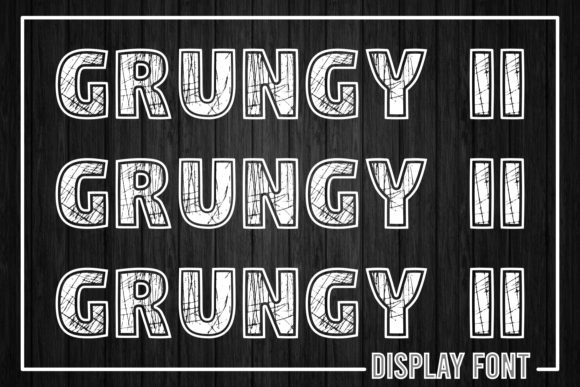
The Birth of a Masterpiece: Unleashing the Power of Grungy I I Font
Have you ever found yourself stuck in a creative rut, staring at a blank page or screen, searching for the perfect font to bring your vision to life? That’s where the magic happens – the moment when the right font clicks, and your project starts to take shape.
Enter Grungy I I Font, a bold and distressed typeface designed to add character and depth to your projects. This uniquely crafted font is perfect for designers who crave a vintage look or a contemporary edge. With its authentic distressed texture and boldness, Grungy I I Font delivers the perfect blend of strength and style, making it a valuable addition to any designer’s toolkit.
Grungy II Font Key Features
- Font Size: The font family includes multiple weights, ranging from Extra Light to Extra Bold, providing flexibility for various design applications.
- Unique Characteristics: Grungy II features a distressed, grungy aesthetic with subtle texture and wear, adding a touch of vintage charm to digital designs.
- Font Styles: Includes various font styles, such as Regular, Italic, Bold, and Bold Italic, to cater to different design needs and preferences.
- Language Support: Supports a wide range of languages, including Latin, Cyrillic, and Greek alphabets, making it suitable for multilingual designs and applications.
Designer Review: Grungy I I Font
Overall, I was intrigued by the Grungy I I font, with its unique blend of grunge and graffiti styles. ✨ The font’s distressed texture adds a layer of depth and character that can be quite eye-catching. Here are some aspects that work well:
- Unique style: Grungy I I stands out from the crowd with its one-of-a-kind aesthetic.
- Expressive feel: The font’s imperfections give it a sense of raw energy and emotion.
- Flexibility: Grungy I I can be used in a variety of contexts, from music to fashion branding.
- Limited legibility: The font’s distressed texture can make it difficult to read, especially at smaller sizes.
- Overuse: Grungy I I’s distinctive style may become tired or clichéd if overused.
Overall, I think Grungy I I is a solid addition to any designer’s toolkit. While it may have its limitations, its unique style and expressive feel make it a great choice for projects where you want to add some edge and personality. Just be mindful of its potential limitations and use it thoughtfully.
Use “Grungy I I Font” for designs that require a distressed or vintage look. It pairs well with bold, bright colors and can add a unique touch to your designs.
“Grungy I I Font” is commonly used for:
- Rock band logos and merchandise
- Distressed or vintage-style posters
- Edgy or alternative fashion designs
Alternatives to Grungy I I Font
Bad Script Font
Bad Script Font is a distressed font that mimics the look of handwritten text. It’s ideal for use in titles, headings, and other areas where a casual, laid-back feel is desired. Unlike Grungy I I Font, which has a more uniform texture, Bad Script Font has a more organic, irregular feel.
Unifraktur Cook Font
Unifraktur Cook Font is a historical font that was inspired by the German Fraktur style. It’s a great choice for use in titles, headings, and body text where a unique, distressed look is desired. Unlike Grungy I I Font, which has a more modern feel, Unifraktur Cook Font has a classic, vintage look.
Codystar Font
Codystar Font is a distressed font that’s inspired by old computer code. It’s ideal for use in titles, headings, and other areas where a retro, techy feel is desired. Unlike Grungy I I Font, which has a more general distressed look, Codystar Font has a more specific, code-inspired aesthetic.
Are there any font pairing suggestions for Grungy I I?
Grungy I I pairs well with fonts that have a strong, bold, or distressed personality. Consider pairing it with fonts like Arial Black, Impact, or a sans-serif font with a rough or grungy texture. You can also experiment with pairing Grungy I I with a clean, modern font to create a striking contrast.